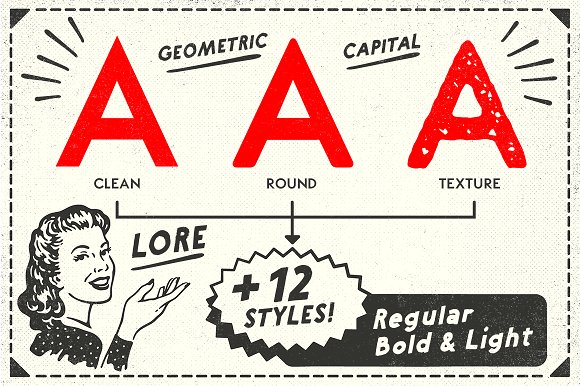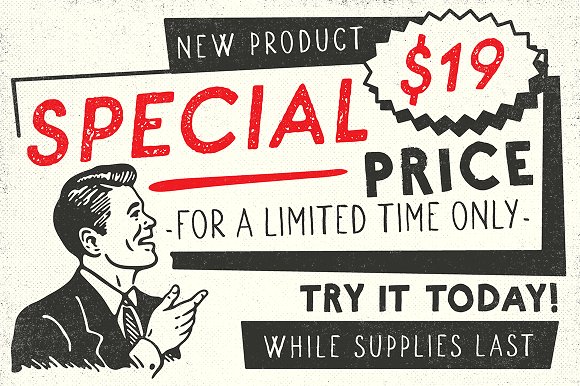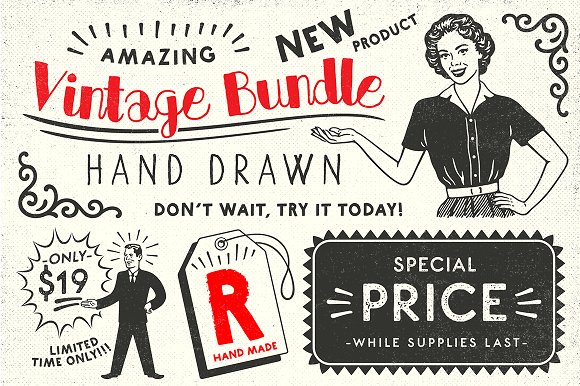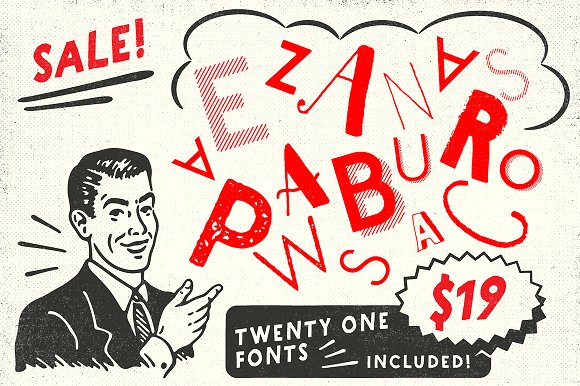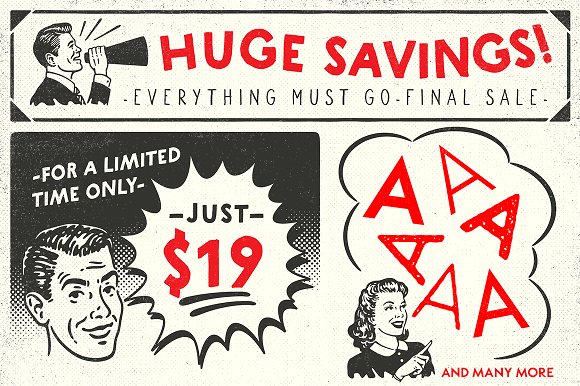
ZACK Vintage Font Bundle
21 Fonts for only 19 $! Handwritten fonts and the LORE Geometric-Sans-Serif in light, regular and bold in total 15 different styles!